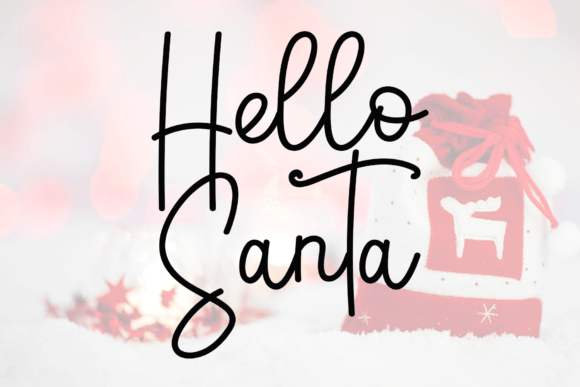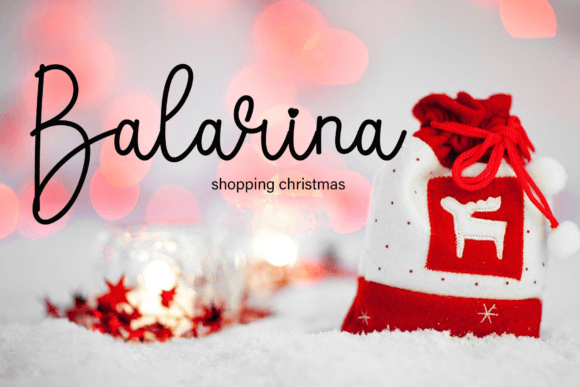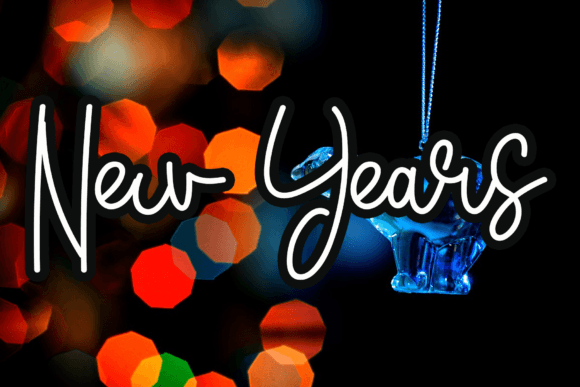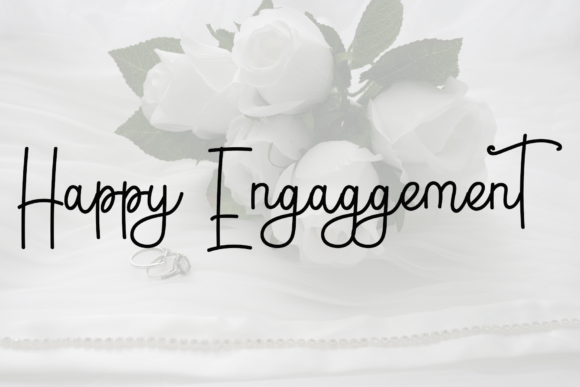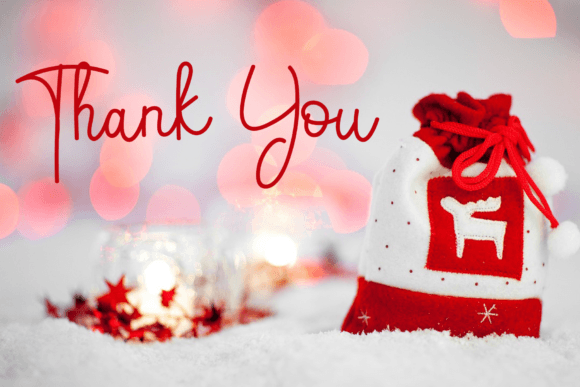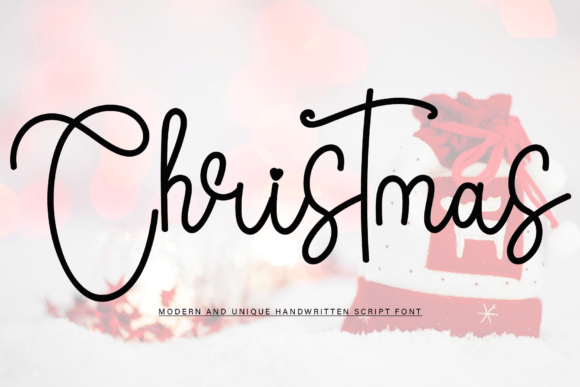
Introducing Christmas Font: The Ultimate Holiday Design Companion
Are you looking for a font that captures the essence of the holiday season? Look no further than Christmas Font, a cool and modern handwritten font that’s perfect for a wide range of design projects. Whether you’re a designer, crafter, or simply someone who loves the holiday season, this font is sure to become your new favorite go-to.
What Makes Christmas Font So Special?
Christmas Font is a unique and versatile font that’s specifically designed to bring a touch of holiday cheer to your designs. With its modern handwritten style, this font is perfect for creating a wide range of projects, from festive crafts and digital designs to presentations and greeting cards.
One of the things that sets Christmas Font apart is its ability to add a personal touch to your designs. The font’s handwritten style gives it a warm and inviting feel that’s perfect for creating holiday cards, invitations, and other personal projects.
Uses for Christmas Font
Christmas Font is an incredibly versatile font that can be used for a wide range of projects. Here are just a few ideas to get you started:
- Crafts: Use Christmas Font to add a personal touch to your holiday crafts, such as scrapbooking, card making, and gift tagging.
- Digital Design: Add a festive touch to your digital designs, such as social media graphics, blog posts, and email newsletters.
- Presentations: Use Christmas Font to add a holiday theme to your presentations, making them perfect for seasonal meetings, parties, and events.
- Greeting Cards: Create beautiful and personalized holiday greeting cards using Christmas Font.
Why Designers and Crafters Love Christmas Font
Christmas Font has quickly become a favorite among designers and crafters, and it’s easy to see why. Here are just a few reasons why:
- Easy to Read: Despite its decorative style, Christmas Font is surprisingly easy to read, making it perfect for use in a wide range of projects.
- Unique Style: The font’s modern handwritten style sets it apart from more traditional holiday fonts, giving your designs a fresh and modern look.
Tips for Using Christmas Font
Here are a few tips for getting the most out of Christmas Font:
- Experiment with Sizes: Don’t be afraid to experiment with different font sizes to add visual interest to your designs.
- Pair with Other Fonts: Try pairing Christmas Font with other fonts to create a unique and eye-catching design.
- Use for Headings and Titles: Use Christmas Font to add a festive touch to your headings and titles, making your designs stand out.
Christmas Font is a cool and modern handwritten font that’s perfect for designers, crafters, and anyone looking to add a touch of holiday cheer to their designs. With its versatile style and wide range of uses, this font is sure to become a favorite go-to for holiday projects. So why wait? Download Christmas Font today and start creating your own festive designs!